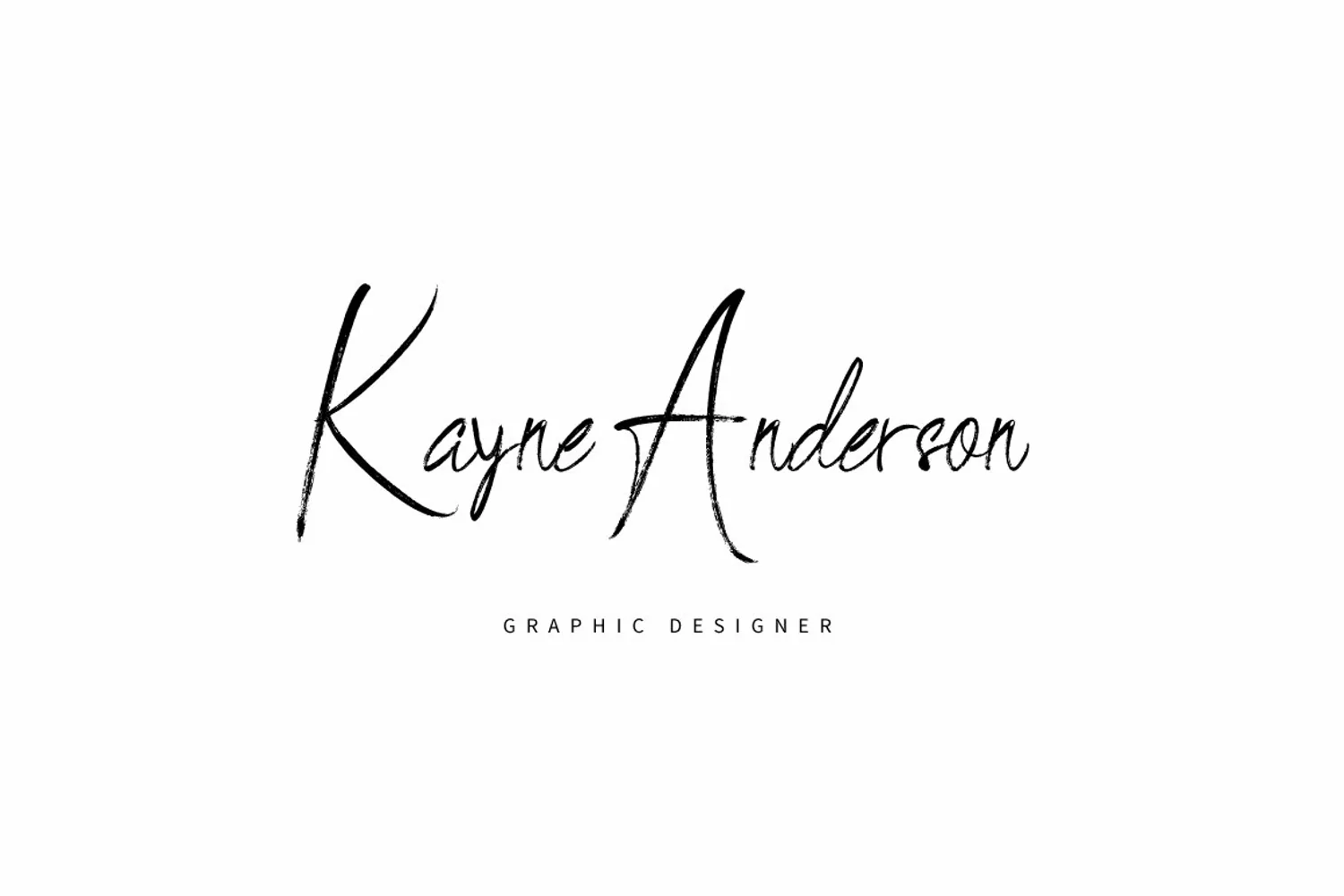
BlackSilver Brush Font
BlackSilver Brush is perfect brush
script
typeface crafted from contemporary brush pen to guarantee you in creating attractive
hand-made typography within a second. ;) Use BlackSilver to help you create
custom hand-lettering with the look of amazing and astonish.
BlackSilver is perfect for logos, websites,
invitations, greeting cards, magazines, business cards, packaging and many
more! Be a perfect professional in a minute and start creating modern designs.